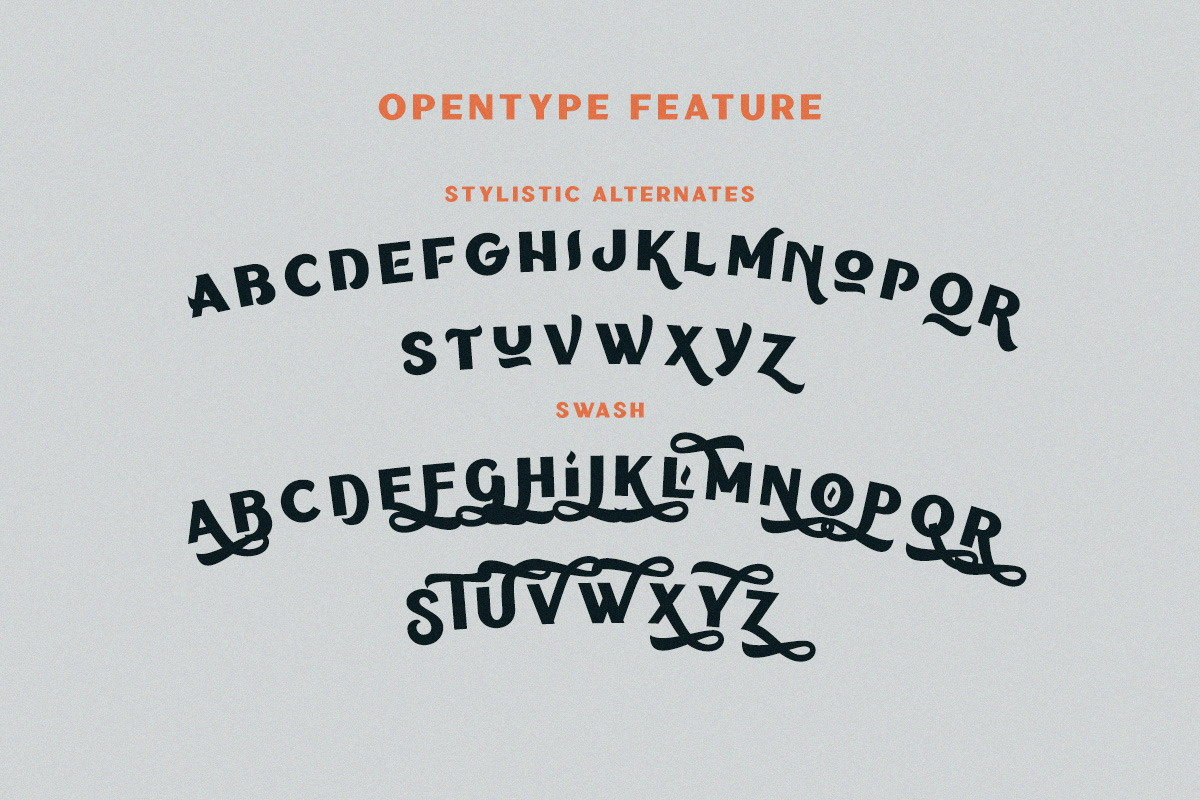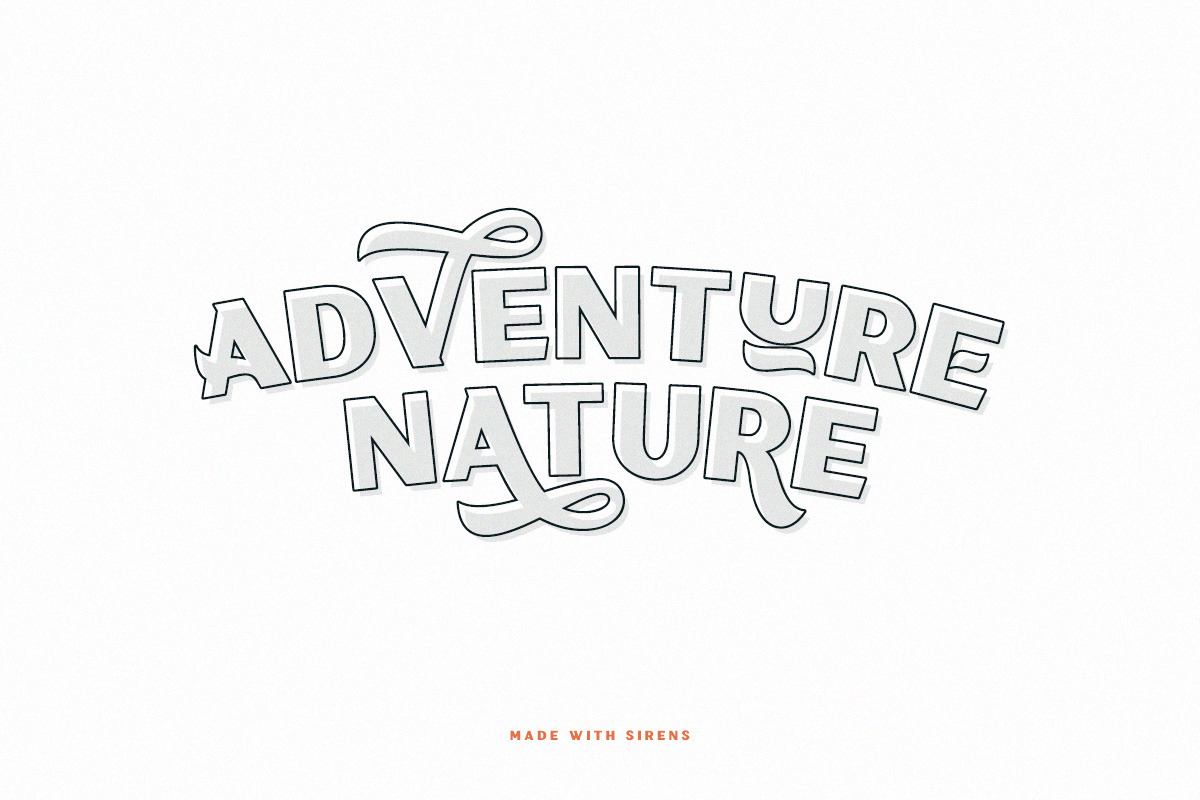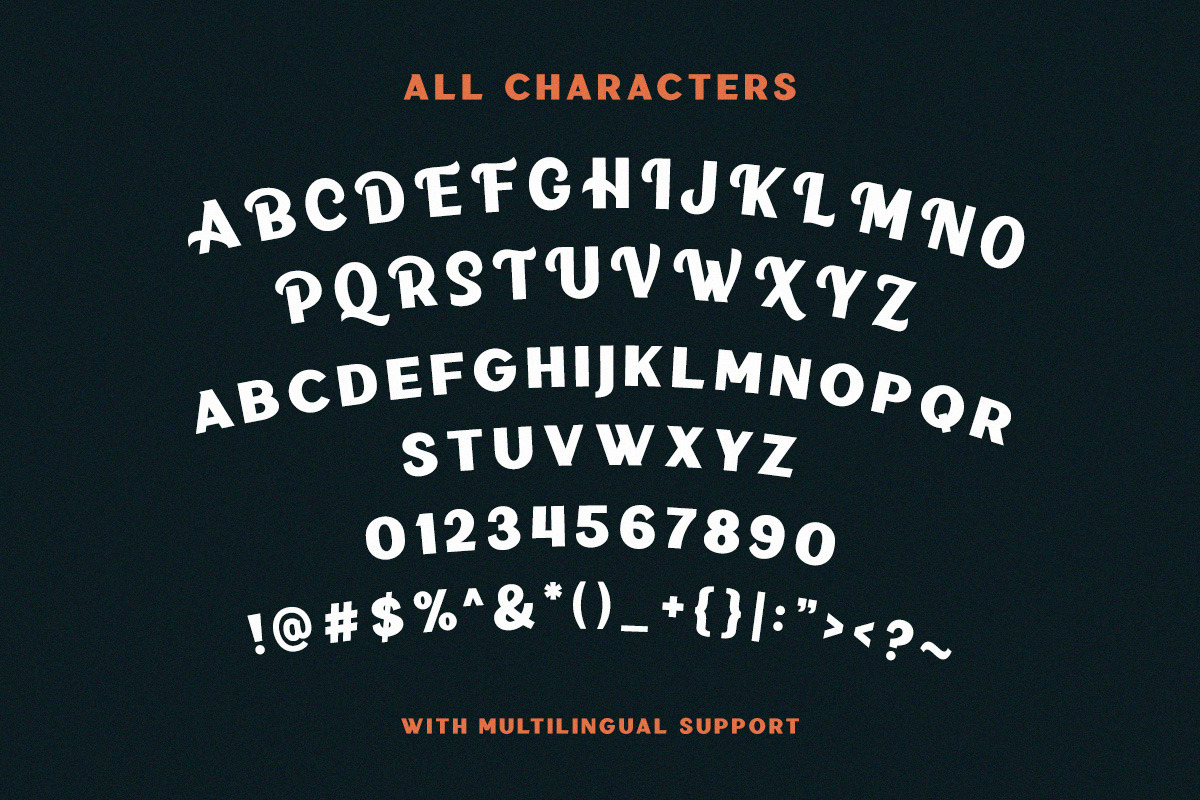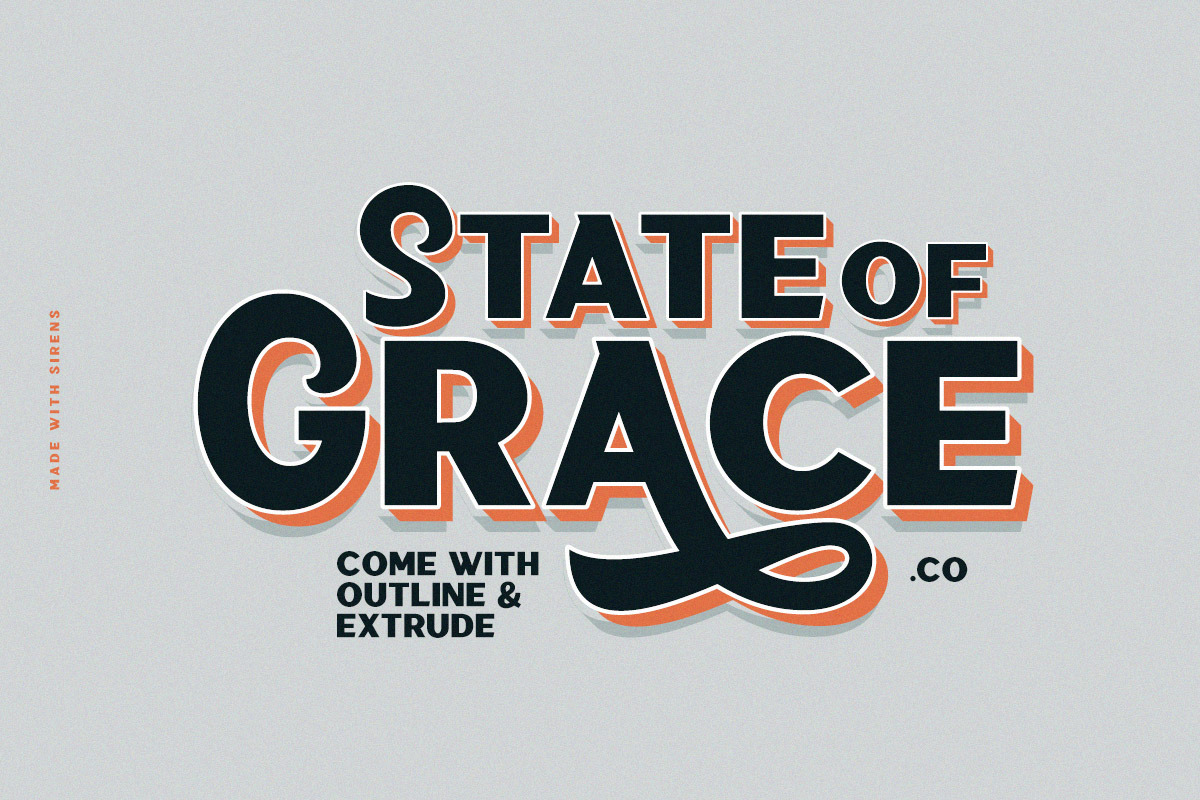
Sirens - Bold Sans
Introducing, Sirens - Bold Sans with Alternates!
Sirens a casual and modern sans. The special things is this font comes with alternates in each lowercase! Every alphabet have alternates up to 3 kinds! This font fits in any project. Strong for your headline. You can use it for a tittle, logo, quotes, or become a pairing in any font. This font also support multi language! Also already PUA Encoded.
Foreign Languages Support: ÀÁÂÃÄÅÇÈÉÊËÌÍÎÏÑÒÓÔÕÖØÙÚÛÜÝßàáâãäåæçèéêëìíîïñòóôõöøùúûüýÿ